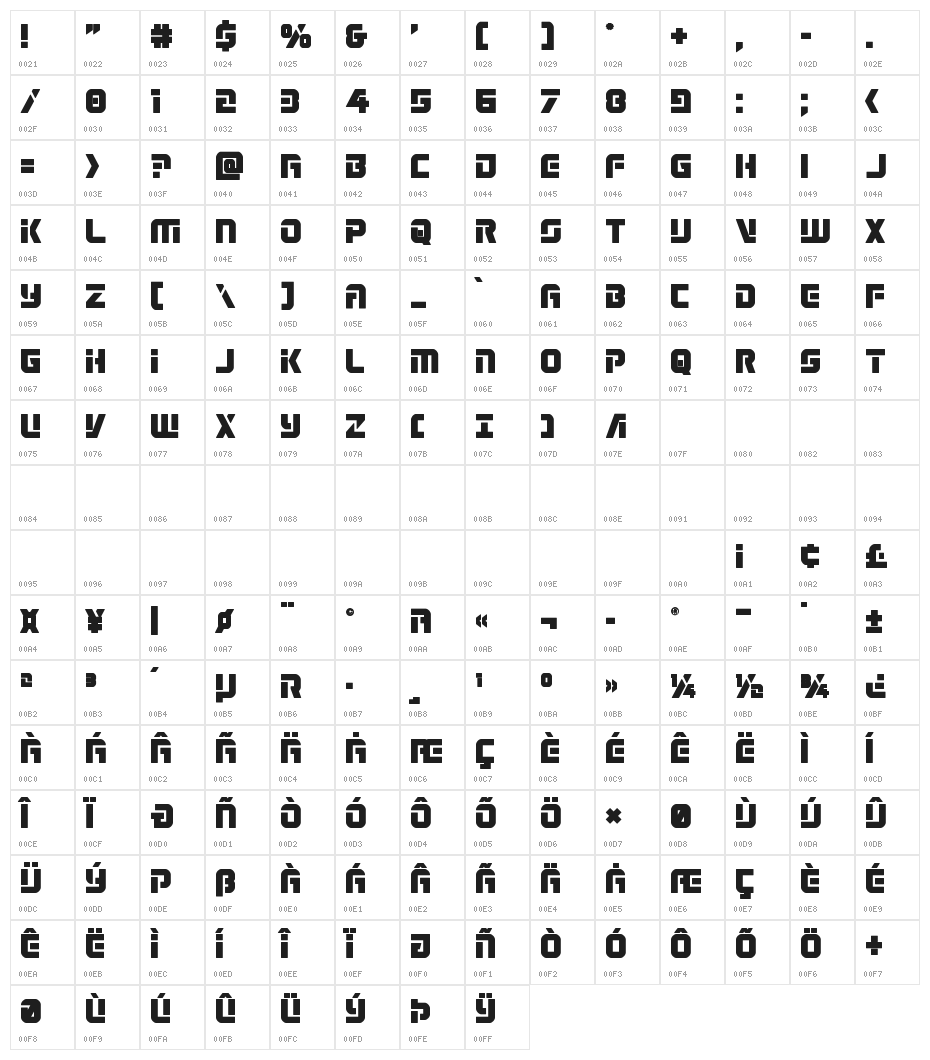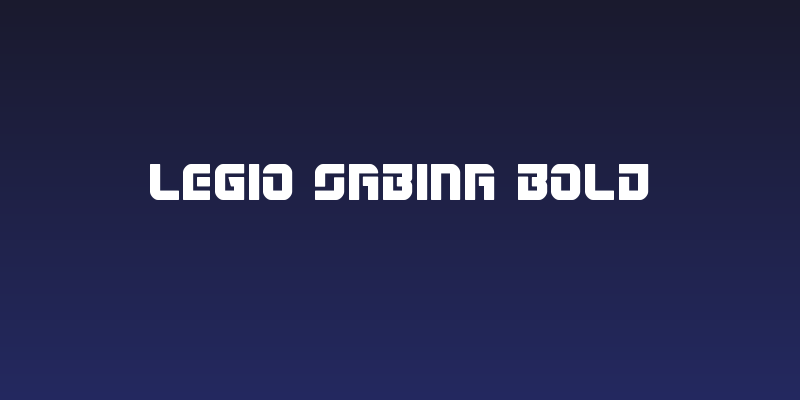
Legio Sabina Bold Font
Legio Sabina Bold Description
This bold, geometric typeface features strong, angular lines and a modern aesthetic. The characters are constructed with uniform thickness, giving a blocky and robust appearance. The uppercase letters are particularly striking, with sharp edges and a futuristic feel. The lowercase letters maintain the same boldness, ensuring consistency throughout the typeface. Numbers are equally bold and geometric, enhancing the overall cohesive look. Special characters are designed to match the bold, angular style, making this font ideal for impactful and attention-grabbing designs.